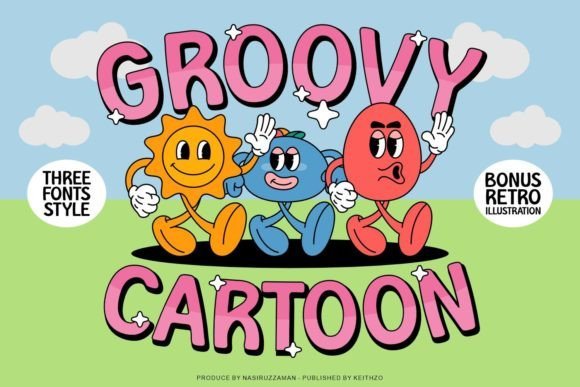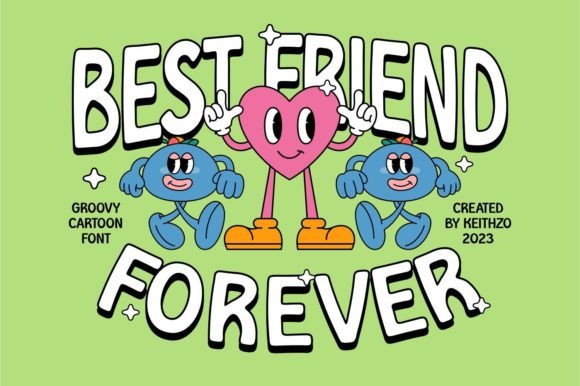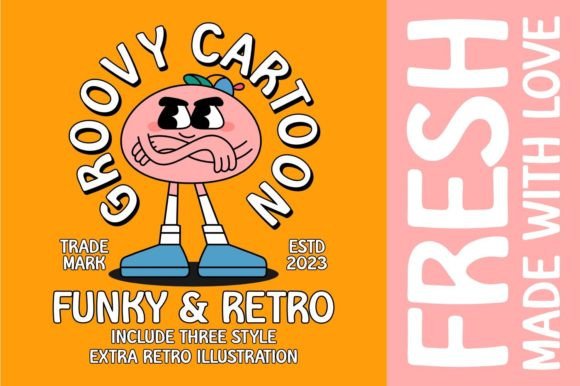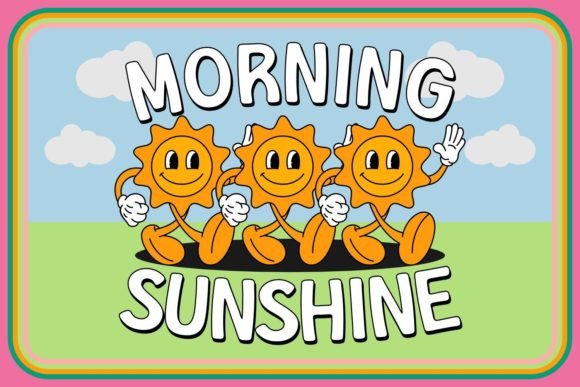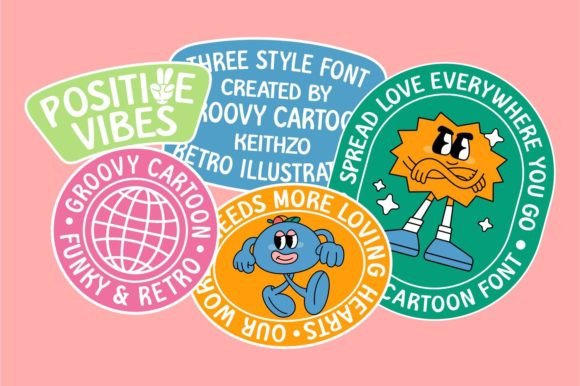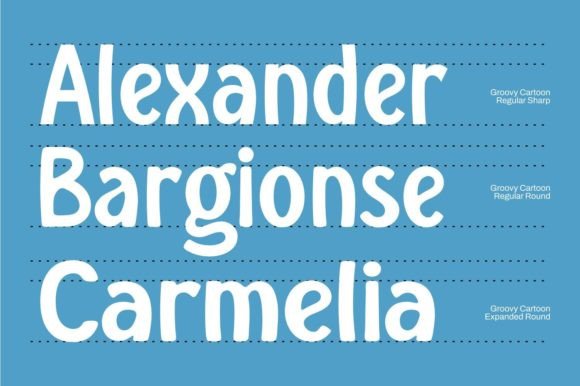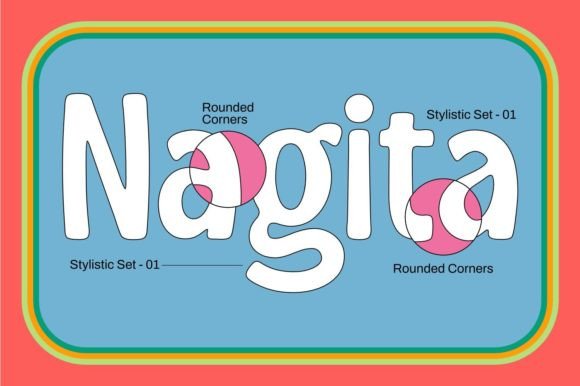
Get Your Groove On with Groovy Cartoon Font
You know that moment when you’re brainstorming ideas for your next design project and suddenly, everything clicks? You envision a playful yet professional aesthetic that makes your work stand out from the crowd. For designers, this ‘aha’ moment is all too familiar. And that’s exactly where the Groovy Cartoon Font comes in – a balanced fusion of whimsy and sophistication that’s sure to elevate your creative endeavors.
This versatile font is more than just a stylish addition to your design toolkit; it’s a valuable asset for any project that requires a touch of personality. Whether you’re working on a marketing campaign, a children’s book, or a social media graphics package, the Groovy Cartoon Font is sure to bring a groovy vibe to your work.
Groovy Cartoon Font Key Features
- Character Count: Over 1000 characters, including Latin, Cyrillic, and Greek alphabets, as well as punctuation and symbols
- Unique Characteristics: Distinctive, hand-drawn style with exaggerated lines and curves, perfect for cartoon and comic book designs
- Font Style: Includes 6 font styles: Regular, Bold, Italic, Bold Italic, Outline, and Shadow, for added flexibility and creativity
- Language Support: Supports multiple languages, including English, Spanish, French, German, Italian, and many more
Designer Review: Groovy Cartoon Font
Overall, I think Groovy Cartoon Font has a lot of potential, but it’s not without its flaws. Let’s dive into what works well and what doesn’t.
- Fun and playful feel: This font is perfect for creating a lighthearted and humorous tone, making it great for children’s content, cartoons, and other fun projects.
- Wide character set: The font has a good range of characters, including letters, numbers, and punctuation, which makes it easy to use in a variety of contexts.
- Easy to read: Despite its playful feel, the font is still easy to read, even at smaller font sizes.
- Limited versatility: While the font is great for fun projects, it may not be the best choice for more serious or formal content.
- Not suitable for long blocks of text: The font’s playful feel can make it difficult to read large blocks of text, so it’s best used for shorter paragraphs or headings.
- Not ideal for body text: Due to its playful feel, the font may not be the best choice for body text, where readability is crucial.
Overall, I think Groovy Cartoon Font is a fun and versatile font that’s perfect for certain types of projects. However, it may not be the best choice for more serious or formal content.
Practical Application Guide for Groovy Cartoon Font
Use the Groovy Cartoon Font to add a playful touch to your designs, such as in children’s book illustrations, cartoon characters, or advertising graphics.
Experiment with different font sizes, colors, and styles to achieve a unique look.
Pair the font with other fun and playful design elements, such as bright colors and whimsical graphics, to create a cohesive and engaging visual identity.
Children’s book illustrations
Cartoon characters
Advertising graphics
Party invitations and decorations
Alternatives to Groovy Cartoon Font
Comic Sans MS is a playful, cursive font that can be used in a variety of contexts, including children’s books, newsletters, and websites. It is particularly well-suited for informal or humorous content. Compared to Groovy Cartoon Font, Comic Sans MS is more straightforward and lacks the distinctive, rounded edges of Groovy Cartoon Font.
Luckiest Guy
Luckiest Guy is a bold, sans-serif font with a fun and energetic feel. It is often used in advertising, gaming, and other applications where a playful tone is desired. In comparison to Groovy Cartoon Font, Luckiest Guy is more angular and lacks the rounded, cartoonish quality of Groovy Cartoon Font.